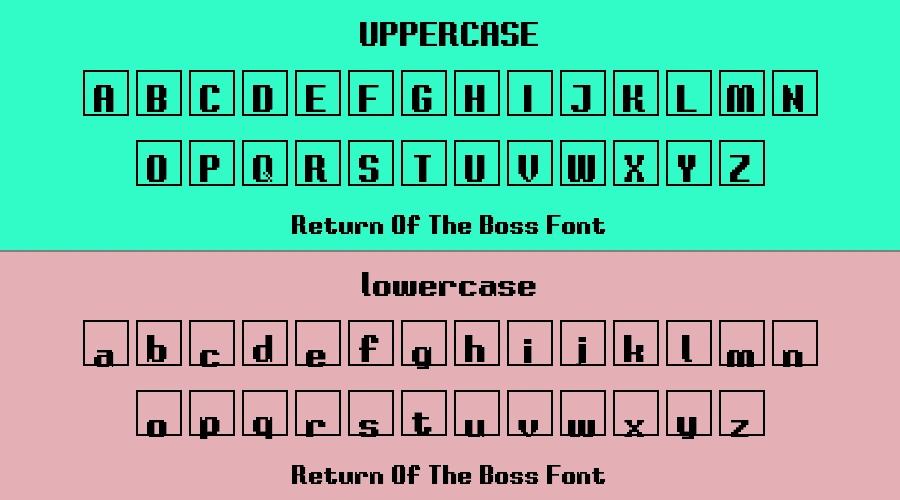
About Return Of The Boss Font
Return Of The Boss Font stands out for its distinctive combination of graceful transitions and exceptional clarity. Ideal for financial statements, it provides the reliability and user trust that professional projects demand. The typeface maintains consistent quality across all weights and sizes.
Key features include refined ink traps and practical proportional figures, enhancing typographic expression. In instruction steps applications, Return Of The Boss Font demonstrates exceptional color application. The bowl width and standards alignment contribute to its distinctive character and professional appeal.